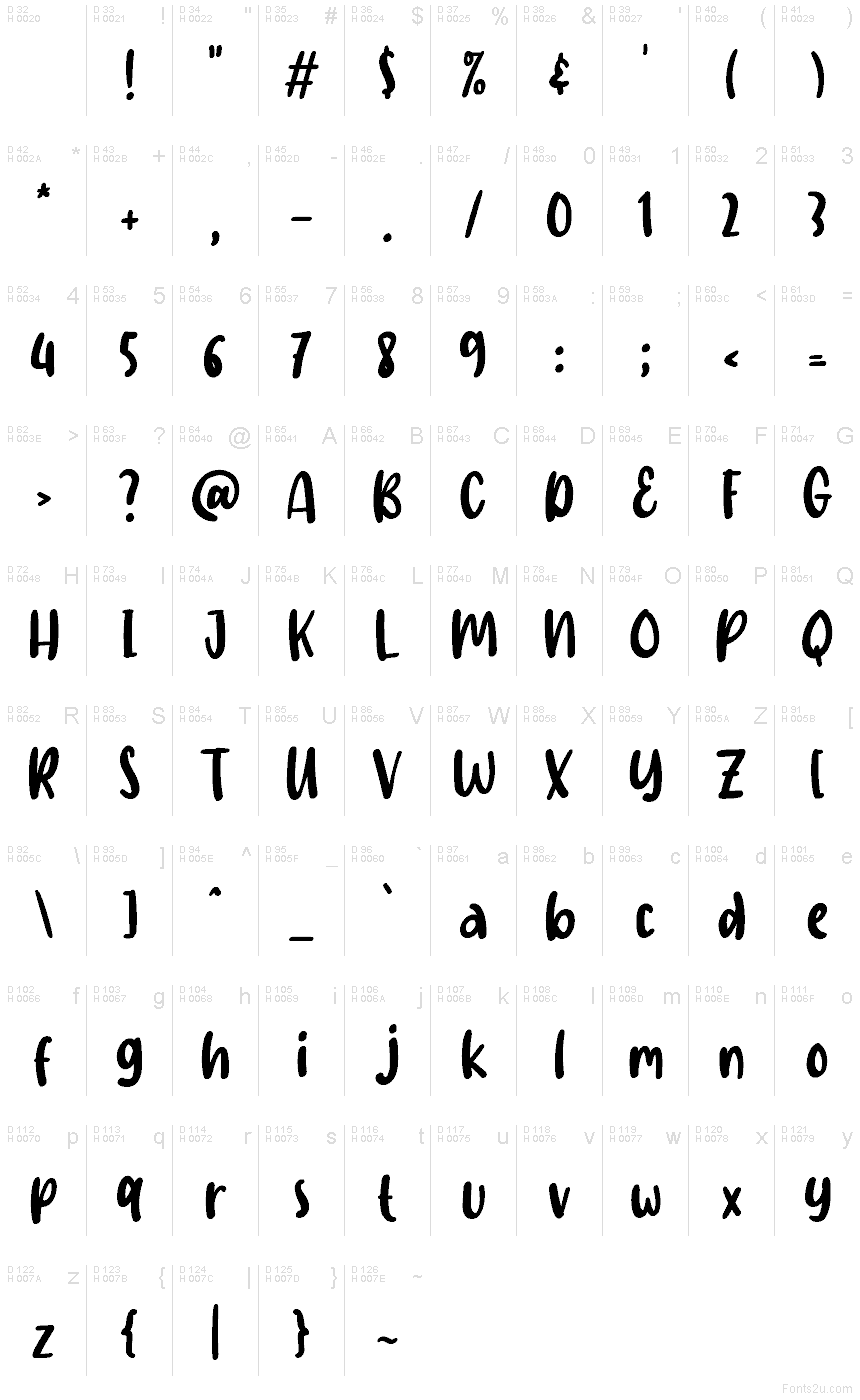
Autumn Crush
Autumn Crush font by Dm Letter Studio - Dimas Prasetyo is a free handwritten display font. Thick, inky strokes and softly rounded shapes give it a warm, cinnamon-roll energy, while the gentle bounce keeps lines lively without getting messy. Letters knit together with consistent spacing, so headlines feel friendly and full, not flimsy.
Using Autumn Crush, you can lift seasonal posters, coffee shop menus, bakery packaging, greeting cards, stickers, and social promos. The bold, brushy rhythm holds up on small labels and sings on big banners, making this free font a natural fit for cozy branding and craft-centered projects. Pair it with a clean geometric sans in a lighter weight to keep contrast crisp and legibility high.